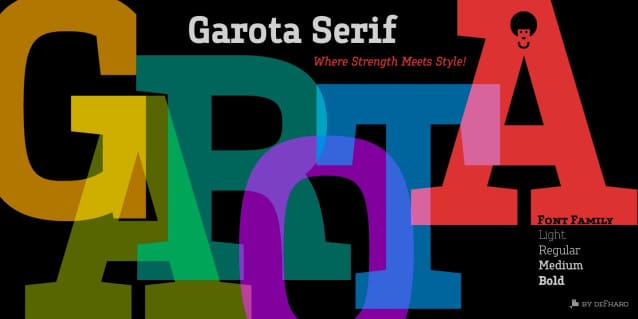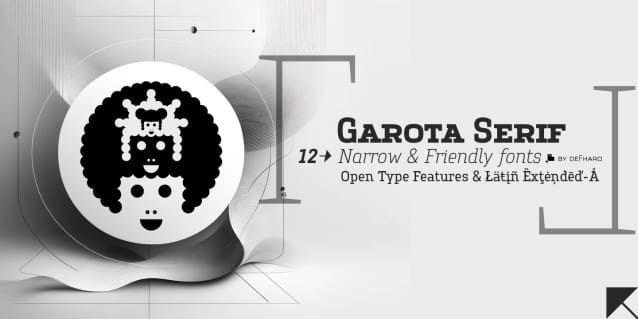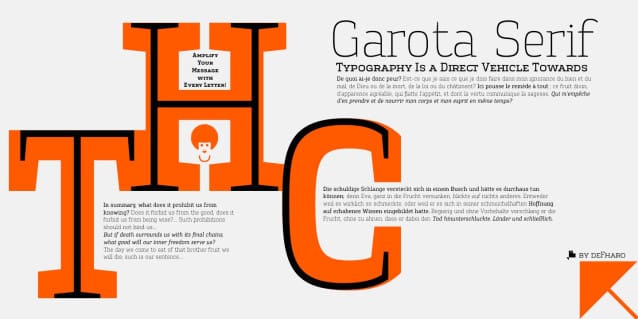
Garota Slab Serif Font
Garota Slab Serif Font is a new typeface family that captures the essence of youth and freshness with a clean and elegant style.
Inspired by organic shapes, this serif typeface combines soft curves and a slightly narrow proportion to create a friendly and exceptionally readable design, achieving a perfect balance between sophistication and accessibility.
Each character has been carefully drawn to convey a feeling of lightness and fluidity, ideal for captivating readers from the first glance.
The family includes four weights —Light, Regular, Medium and Bold— and three distinctive styles —Roman, Italic and Small Caps— 12 fonts, allowing for exceptional versatility in use, and a rich and consistent typographic experience that perfectly adapts to the needs of editorial and advertising design.
In addition, Garota Serif includes advanced OpenType features that enhance its expressive capacity. These features offer alternative letters and numbers, currency symbols, arrows or dynamic fractions, providing designers with a powerful tool for projects that require a touch of sophistication to create unique and effective typographic compositions.